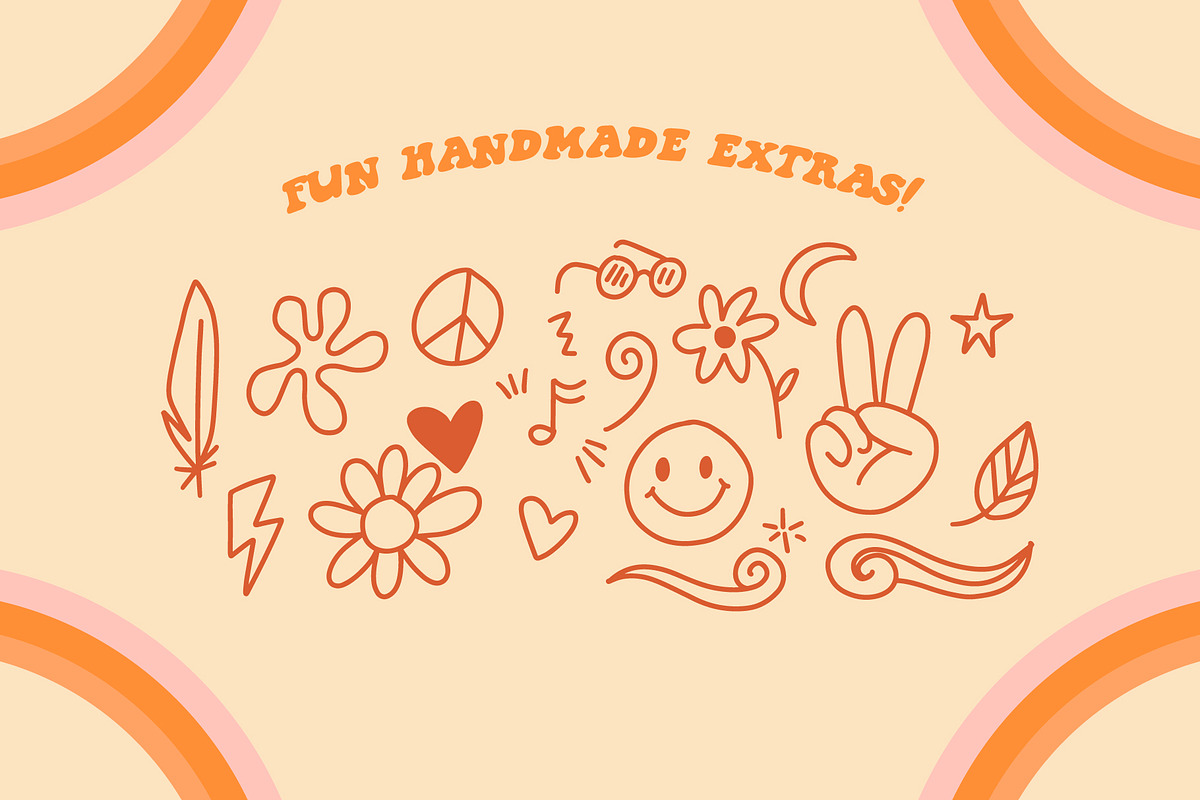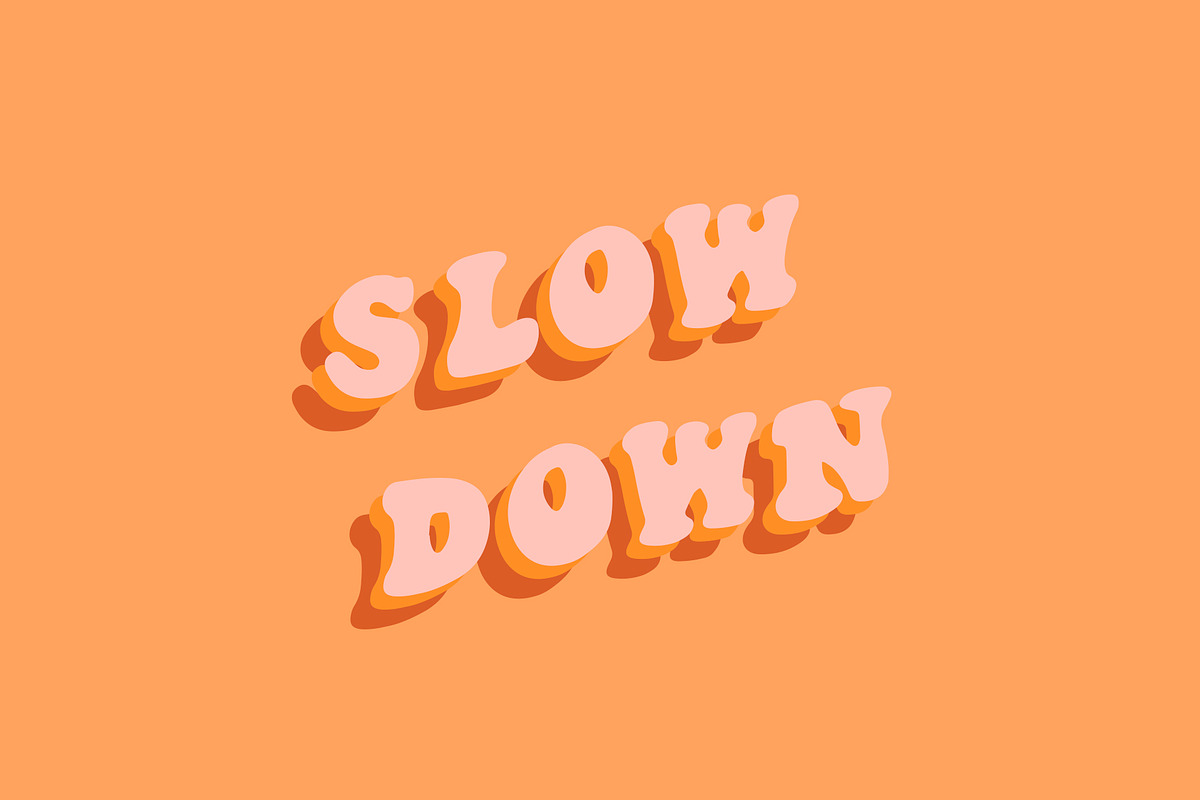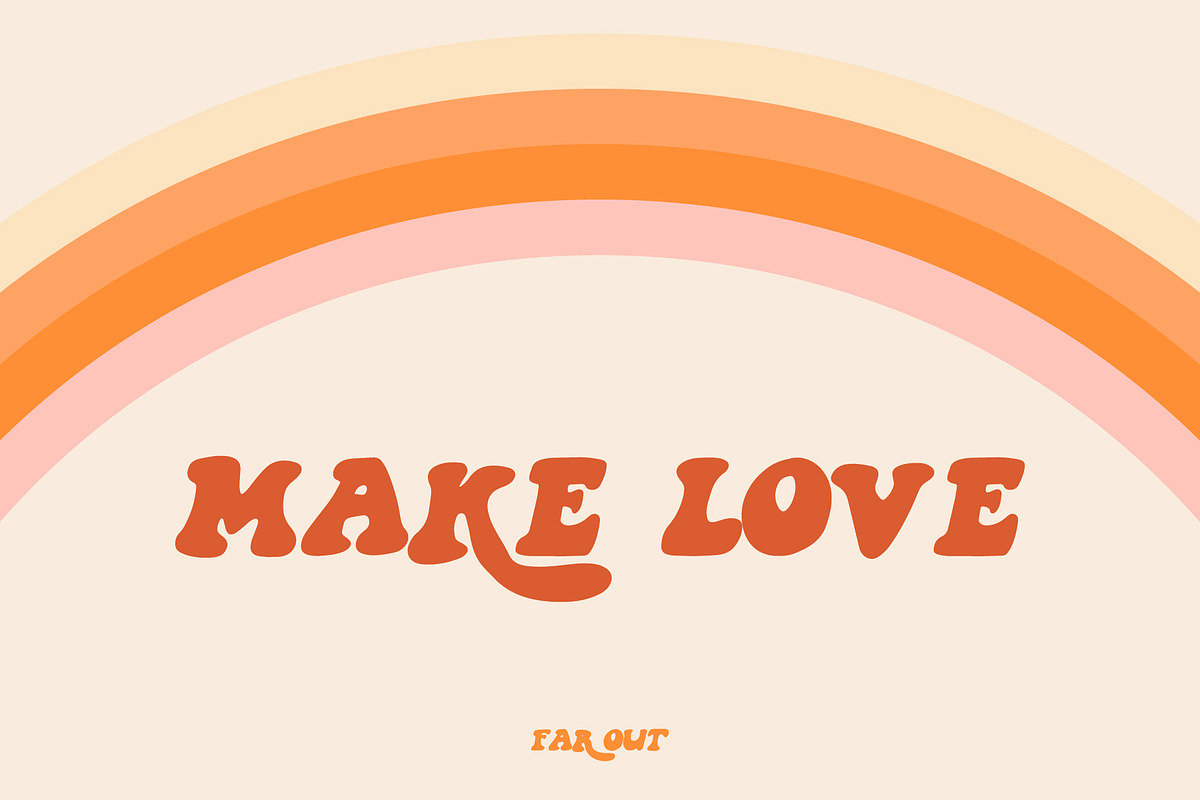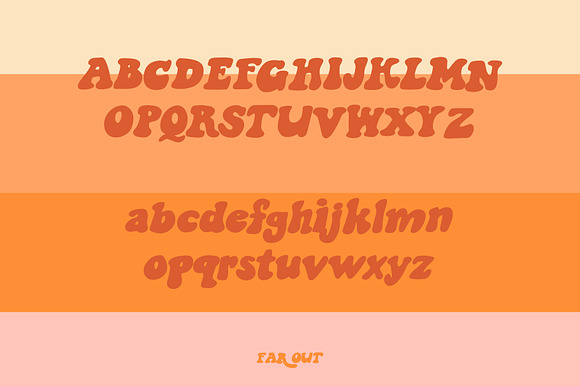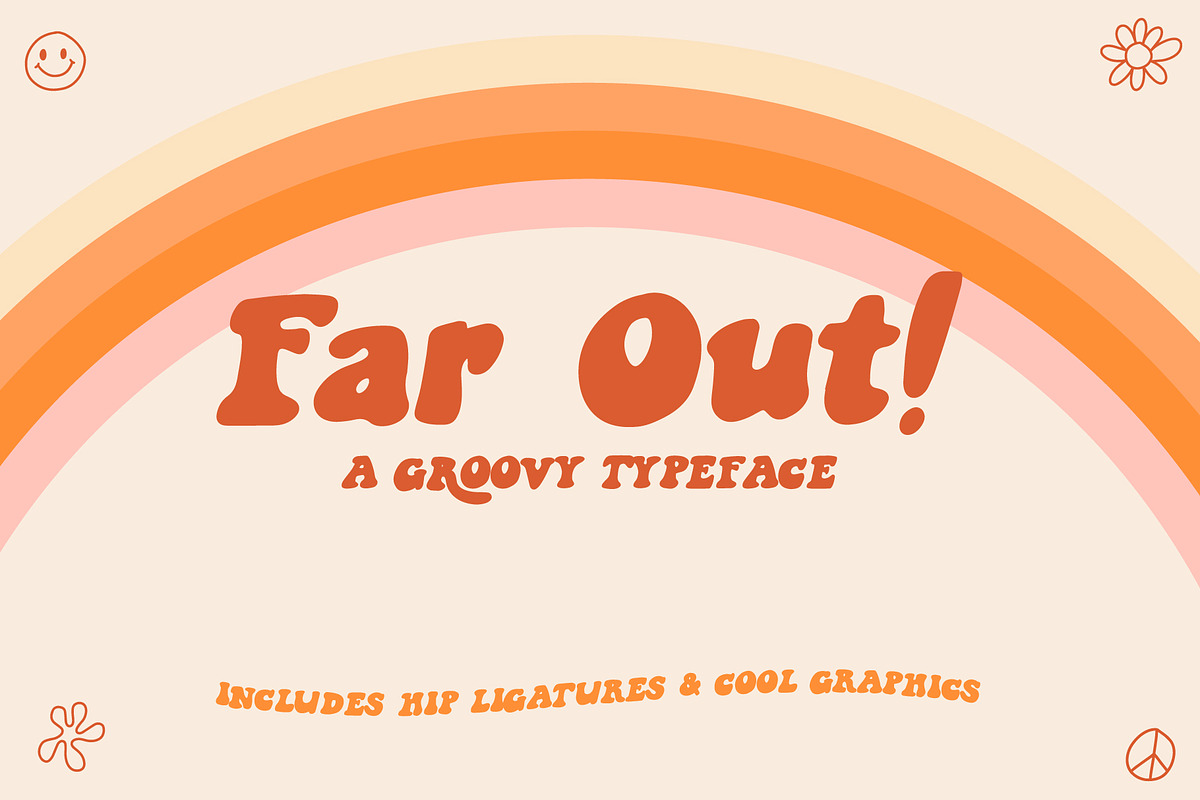
Far Out! - A Groovy Typeface
Dig this groovy font, Far Out ~ Inspired by the Flower Children of the 60's and 70's ~ Includes 22 hand drawn graphics to elevate your hip designs!